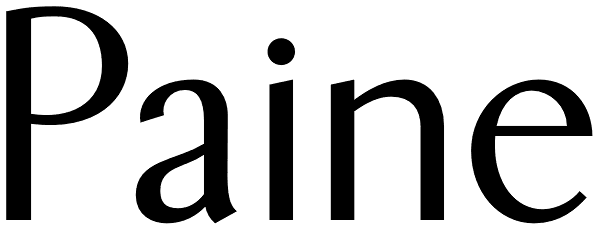
Paine
Paine was designed to be a humanistic sans serif with an overall contemporary feel while at the same time evoking the feeling of earlier transitional faces.
Paine Font